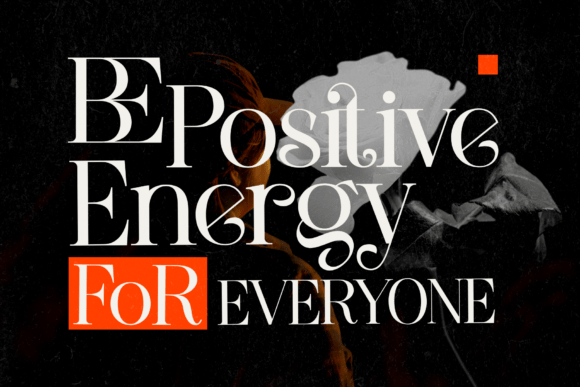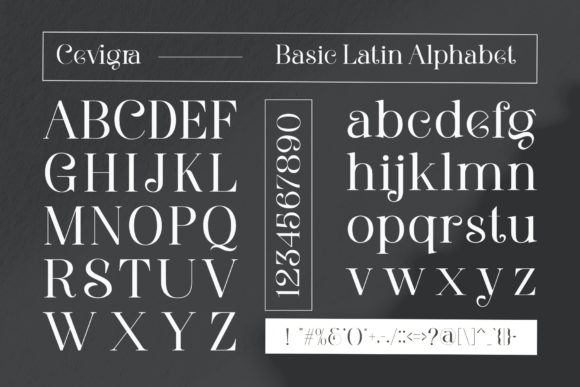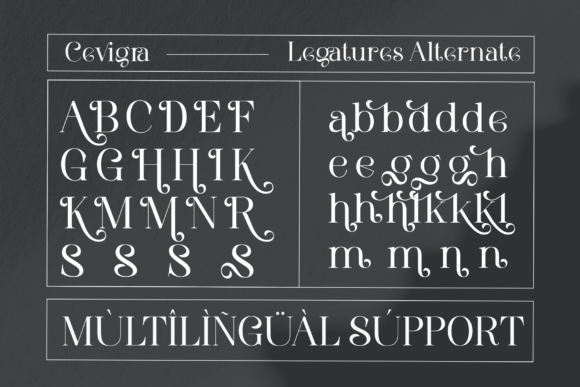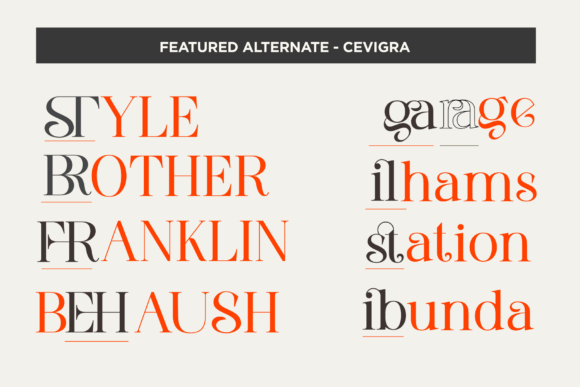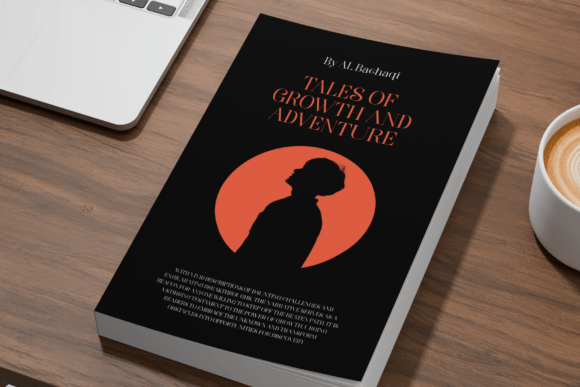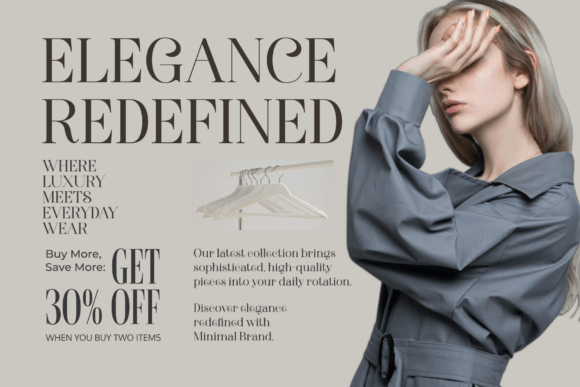
Cevigra Elegant Serif Font – Perfect for Sophisticated and Modern Designs
In the world of typography, a well-chosen font can elevate your design from ordinary to extraordinary. If you’re looking for a typeface that exudes elegance, sophistication, and professionalism, look no further than the Cevigra Elegant Serif Font. Designed to bring a touch of refinement to your projects, Cevigra is a modern serif font that is perfect for a wide range of applications, from luxury branding and product packaging to website content and more.
What Makes Cevigra Stand Out?
Cevigra’s sleek letterforms and proportional shapes make it a versatile font that can be used in various design contexts. Its elegant serif design ensures that your text is not only readable but also visually appealing, adding a layer of sophistication to your projects. Whether you’re working on a high-end brand campaign or a personal craft project, Cevigra’s refined aesthetic is sure to impress.
The Power of Ligatures
One of the standout features of Cevigra is its inclusion of functional ligatures. These special character combinations allow for a smoother text flow and make your designs more attractive and polished. By connecting characters seamlessly, ligatures create a visually cohesive look that enhances the overall readability and style of your text. This feature is particularly useful for designers and crafters who want to add a personal touch to their work without compromising on professionalism.
Versatility Across Platforms
Cevigra is designed to be versatile, making it suitable for both print and digital applications. Its excellent readability and style ensure that your text looks great across all platforms, from business cards and brochures to websites and social media graphics. This flexibility makes Cevigra an excellent choice for designers and crafters who work on a variety of projects and need a reliable font that can adapt to different contexts.
As a designer or crafter, you’re likely always on the lookout for high-quality fonts that can help you create stunning visuals. Cevigra is an excellent addition to your font library, offering a unique blend of elegance, sophistication, and versatility. Whether you’re working on a client project or a personal craft, Cevigra’s refined aesthetic and functional features make it an excellent choice.
Key Features of Cevigra
- Modern serif typeface: Cevigra’s sleek design ensures that your text is both readable and visually appealing.
- Elegant letterforms: Cevigra’s proportional shapes and refined aesthetic make it perfect for luxury branding, product packaging, and more.
- Functional ligatures: Seamlessly connect characters for a smoother text flow and more polished look.
- Versatile: Suitable for both print and digital applications, Cevigra is perfect for a wide range of design contexts.
- Excellent readability: Cevigra’s clear and refined design ensures that your text is easy to read across all platforms.
If you’re looking for a font that can elevate your designs and add a touch of sophistication, look no further than Cevigra Elegant Serif Font. With its modern design, elegant letterforms, and functional ligatures, Cevigra is the perfect choice for designers and crafters who want to create stunning visuals. Whether you’re working on a luxury brand campaign or a personal craft project, Cevigra’s refined aesthetic and versatility make it an excellent addition to your font library.